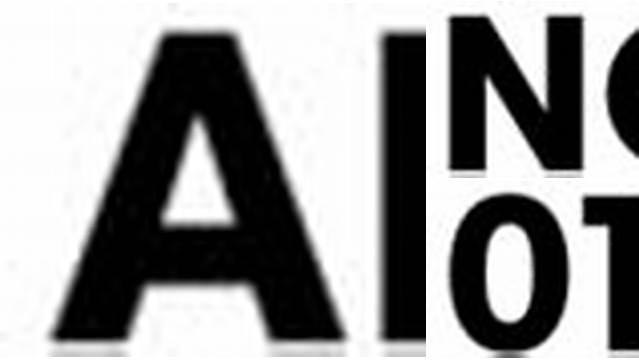
Hey guys! Are you looking to make a statement with your designs? Let's dive into the world of Segment Extra Bold font, a typeface that exudes confidence and strength. In the realm of typography, choosing the right font can make all the difference. It's not just about making text readable; it's about conveying a feeling, setting a mood, and establishing a brand identity. A font like Segment Extra Bold isn't merely a collection of glyphs; it's a powerful tool that can transform your message from subtle to striking. This font family, particularly the Extra Bold variant, stands out for its robust characters and commanding presence, making it a favorite among designers seeking to create impactful visuals. Whether you're working on a poster, a website headline, or a logo, Segment Extra Bold offers the visual weight and clarity needed to grab attention. Its strong, clean lines make it incredibly versatile, lending itself well to both digital and print mediums. The boldness of the font ensures readability even at a distance, making it ideal for signage and large displays. Moreover, its modern aesthetic aligns with contemporary design trends, allowing your work to look current and professional. The key to using Segment Extra Bold effectively lies in understanding its strengths. It's a font that thrives in headings, titles, and short bursts of text where impact is crucial. Overusing such a bold font in large bodies of text can lead to visual fatigue and detract from readability. However, when used judiciously, it can add a touch of sophistication and authority to your projects. So, if you're ready to inject some boldness into your designs, let's explore where you can find this fantastic font for free and how to make the most of it.
What Makes Segment Extra Bold Font Special?
So, what's the buzz about Segment Extra Bold? What makes it so special that designers are constantly seeking it out for their projects? Well, let’s break it down. First off, the sheer boldness of this font is its most defining characteristic. It commands attention without being overly flashy, which is a delicate balance to strike. The extra bold weight gives each character a solid, substantial feel, making your text appear confident and assertive. This makes it perfect for headlines, titles, and any place where you need to make a strong first impression. Beyond its boldness, Segment Extra Bold boasts a clean, modern design. The letterforms are meticulously crafted with precise lines and balanced proportions. This clarity ensures that the font remains legible even at smaller sizes, which is crucial for versatile design applications. Whether you're designing a website, a brochure, or even a business card, the font's readability will not let you down. Another aspect that sets Segment Extra Bold apart is its versatility. While it's undoubtedly bold and assertive, it's also surprisingly adaptable. It pairs well with a variety of other fonts, allowing you to create interesting typographical hierarchies. For instance, you could use Segment Extra Bold for your headlines and pair it with a lighter, more delicate font for your body text. This contrast can add depth and visual interest to your designs. Moreover, Segment Extra Bold isn't limited to a specific design style. It works equally well in corporate branding, editorial design, and even creative projects. Its neutrality allows it to blend seamlessly with various themes and aesthetics. The impact of Segment Extra Bold also lies in its ability to evoke a sense of authority and professionalism. This makes it an excellent choice for projects that require a touch of gravitas, such as legal documents, financial reports, or academic publications. However, don't let its seriousness fool you; it can also be used in more playful contexts. Its bold nature can add a touch of fun and energy to designs, making it suitable for posters, flyers, and social media graphics. The beauty of Segment Extra Bold is that it offers a perfect blend of strength, clarity, and versatility. It's a font that can make your designs stand out while maintaining a sense of sophistication. So, if you're looking for a font that can do it all, Segment Extra Bold might just be your new best friend.
Tips for Using Segment Extra Bold Font Effectively in Your Designs
Now that you've got Segment Extra Bold font installed and ready to roll, let's talk strategy! How do you actually use this bold beauty effectively in your designs? It's not just about slapping it everywhere; it's about knowing when and how to leverage its strengths to create impactful visuals. First and foremost, consider the context of your design. Segment Extra Bold is a powerhouse, and like any powerful tool, it's best used judiciously. It shines in headlines, titles, and short bursts of text where you need to grab attention instantly. Think website headers, poster slogans, or even striking social media graphics. Overusing it in large blocks of text can lead to visual fatigue and dilute its impact. Think of it as the spice in your design recipe – a little goes a long way! Pairing Segment Extra Bold with a more subdued font for body text is a classic and effective technique. This creates a visual hierarchy, making your design more readable and engaging. A lighter sans-serif font like Open Sans or a classic serif font like Times New Roman can provide a beautiful contrast to the boldness of Segment Extra Bold. This balance helps guide the viewer's eye and prevents the design from feeling overwhelming. Color is another crucial factor to consider. Because Segment Extra Bold is so assertive, it works exceptionally well with contrasting colors. Think bold, dark text on a light background or vice versa. This contrast enhances the font's legibility and makes your message pop. However, be mindful of color combinations that might clash or be difficult to read. The goal is to create visual harmony, not visual chaos. Spacing is also key when working with bold fonts. Give Segment Extra Bold some breathing room! Increase the letter spacing (tracking) and line height (leading) slightly to prevent the text from feeling cramped. This improves readability and allows the font to make its statement without feeling squeezed. In terms of size, Segment Extra Bold can hold its own at various sizes, but it truly shines when used large. Don't be afraid to go big with your headlines! The font's clean lines and strong presence make it easily legible even at larger sizes, ensuring your message is seen and heard. Experiment with different applications of Segment Extra Bold. It's not just for print; it works beautifully in digital designs as well. Consider using it for website navigation menus, app interfaces, or even video titles. Its versatility allows it to adapt to various mediums and styles. By keeping these tips in mind, you can harness the full potential of Segment Extra Bold font and create designs that are both striking and effective. Remember, typography is an art, so have fun experimenting and finding what works best for your specific project!
Conclusion: Embrace the Boldness
So, guys, we’ve journeyed through the world of Segment Extra Bold font, exploring its unique characteristics, where to find it for free, how to install it, and, most importantly, how to wield its power effectively in your designs. It’s clear that this font isn't just another typeface; it’s a statement. It’s a way to infuse your projects with confidence, clarity, and a touch of modern sophistication. Embracing the boldness of Segment Extra Bold can elevate your designs from ordinary to extraordinary. Whether you're crafting a compelling headline, designing a standout logo, or creating eye-catching marketing materials, this font has the oomph to make your message resonate. Its strong presence commands attention, while its clean lines ensure readability, a combination that’s crucial for impactful communication. But remember, with great power comes great responsibility! The key to using Segment Extra Bold effectively is balance. Pair it thoughtfully with other fonts, consider your color palette, and pay attention to spacing. Don't let its boldness overwhelm your design; instead, use it strategically to highlight key elements and guide the viewer's eye. Think of Segment Extra Bold as a tool in your design arsenal. It’s not the only tool, but it’s certainly one of the most potent. Knowing when and how to deploy it can make all the difference in the success of your project. And the best part? You can often find it for free, making it an accessible resource for designers of all levels. Whether you're a seasoned pro or just starting out, experimenting with fonts like Segment Extra Bold can expand your creative horizons and help you develop your unique design style. So, go ahead, download Segment Extra Bold, and start playing! Unleash its boldness in your next project and see the transformation firsthand. Embrace the power of typography, and let your designs speak volumes. After all, in the world of visual communication, a bold font can be the voice that gets heard.